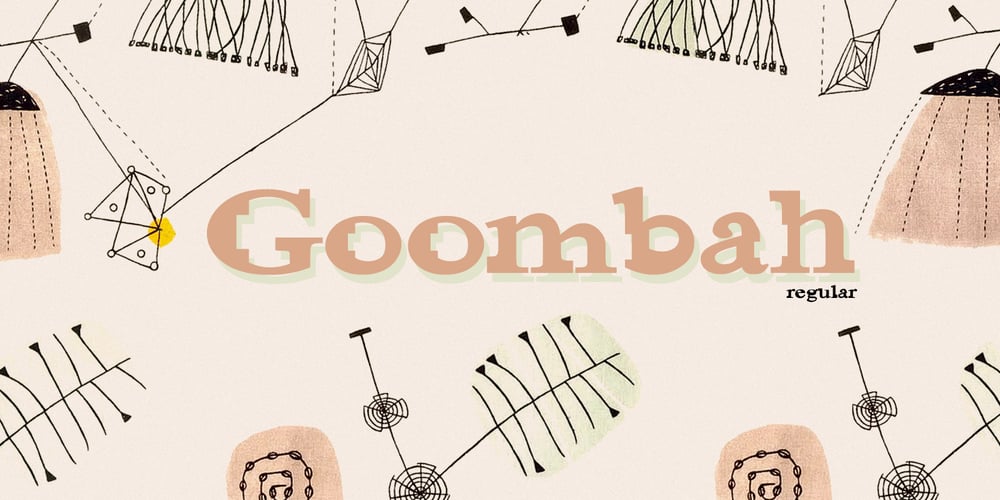
Goombah
Goombah font
Goombah Font Family was designed by Todd Dever and published by Cool Fonts. Goombah contains 3 styles and family package options. Goombah is a cosmic journey to those cheezey cartoons of the early 60’s. It can be used for a modern look or a retro look. It comes in 3 styles: regular, outline and generator (which has a filled outline with a space between).